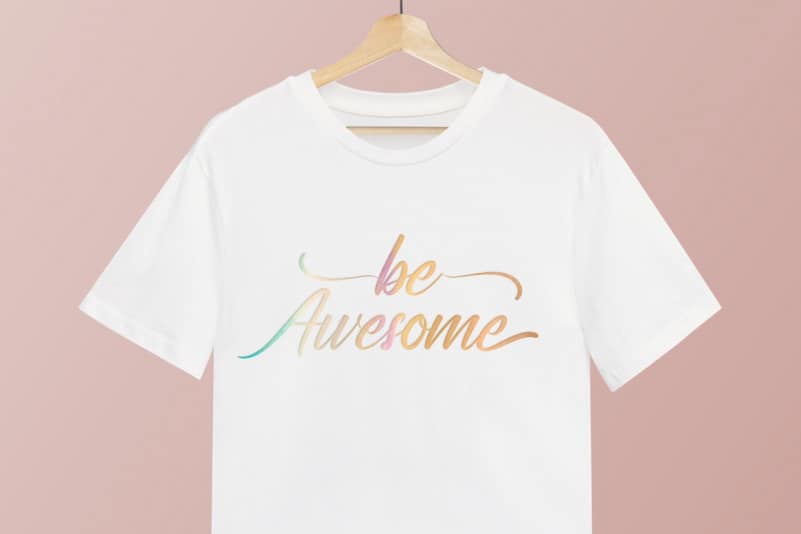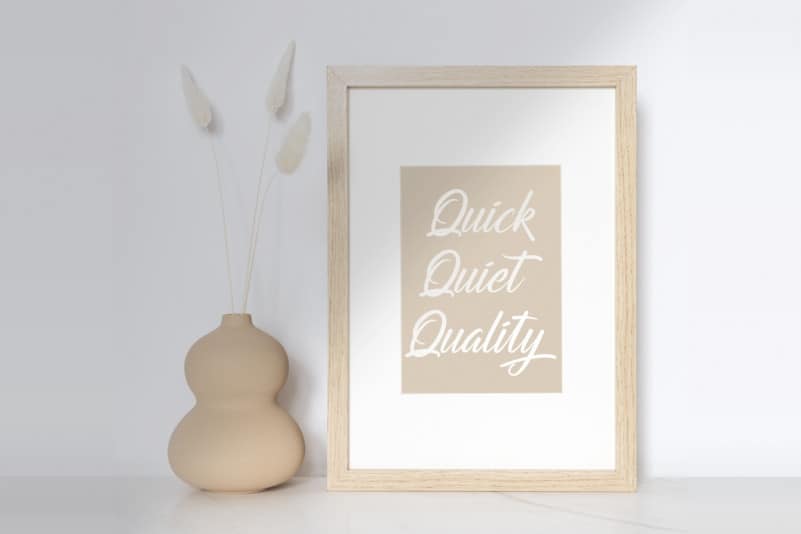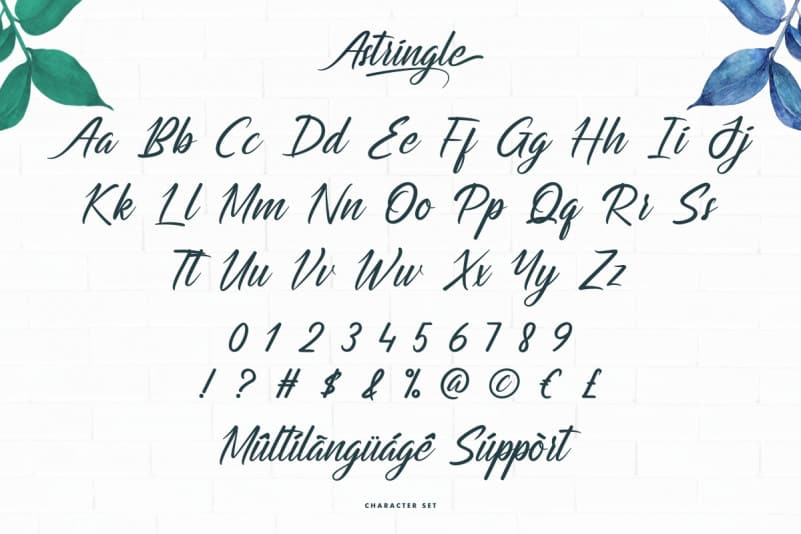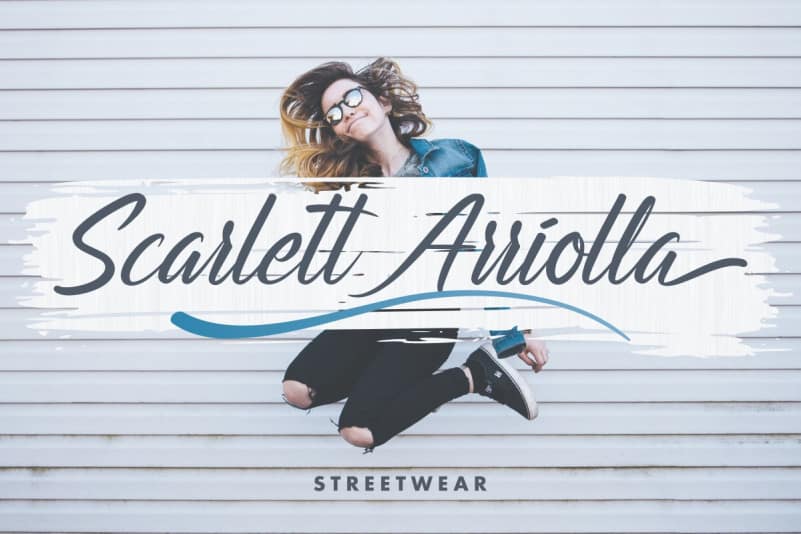
Astringle Calligraphy Font
Astringle Font is a modern calligraphy font. It has unique looks that are beautiful, modern, elegant, luxury, lettering and sophisticated brush font.